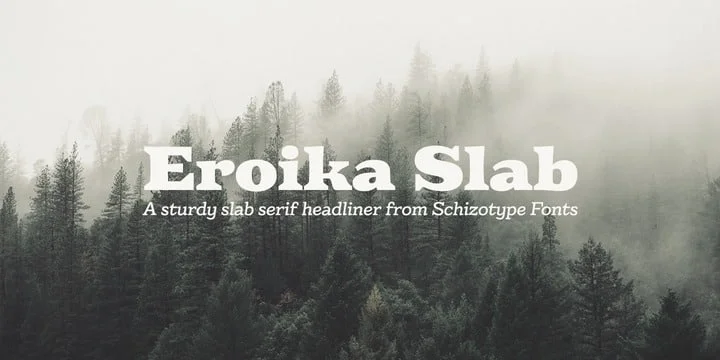
Eroika Slab Font is perfect for bold editorial headlines, newspaper designs, corporate branding, magazine mastheads, book covers, poster campaigns, professional presentations, architectural firm logos, industrial product packaging, and strong typographic statements that require substantial visual weight and authoritative presence.
This font is exciting because it combines the commanding presence of slab serif letterforms with refined contemporary styling that feels both powerful and approachable. The robust serifs and solid construction create exceptional impact while maintaining excellent readability, making it ideal for designs that need to convey strength, reliability, and professional confidence without appearing overly aggressive.
The Eroika Slab Font family typically includes multiple weights from light to black, uppercase and lowercase characters, numerals, extensive punctuation, special symbols, and multilingual support that provides comprehensive typographic flexibility for diverse professional applications.
Whether you're designing impactful brand identities for established corporations, creating editorial layouts that demand reader attention, or developing marketing materials that need to project authority and trustworthiness, Eroika Slab Font Free Download delivers the typographic foundation for powerful visual communication. Its commanding character and versatile weight options make every project feel more credible and professionally executed, ensuring your designs effectively convey strength, stability, and enduring quality that builds confidence and commands respect across all media.